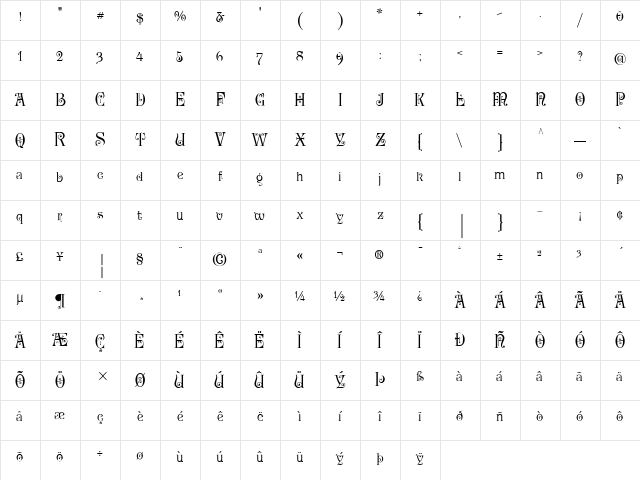
P22 Kilkenny Eureka Eureka
Style: Eureka
Foundry: International House of Fonts - P22 type foundry
Designer: Paul Hunt
Design Context for P22 Kilkenny Eureka
P22 Kilkenny Eureka is a composed and adaptable typeface that performs quietly and consistently across a wide range of design contexts.